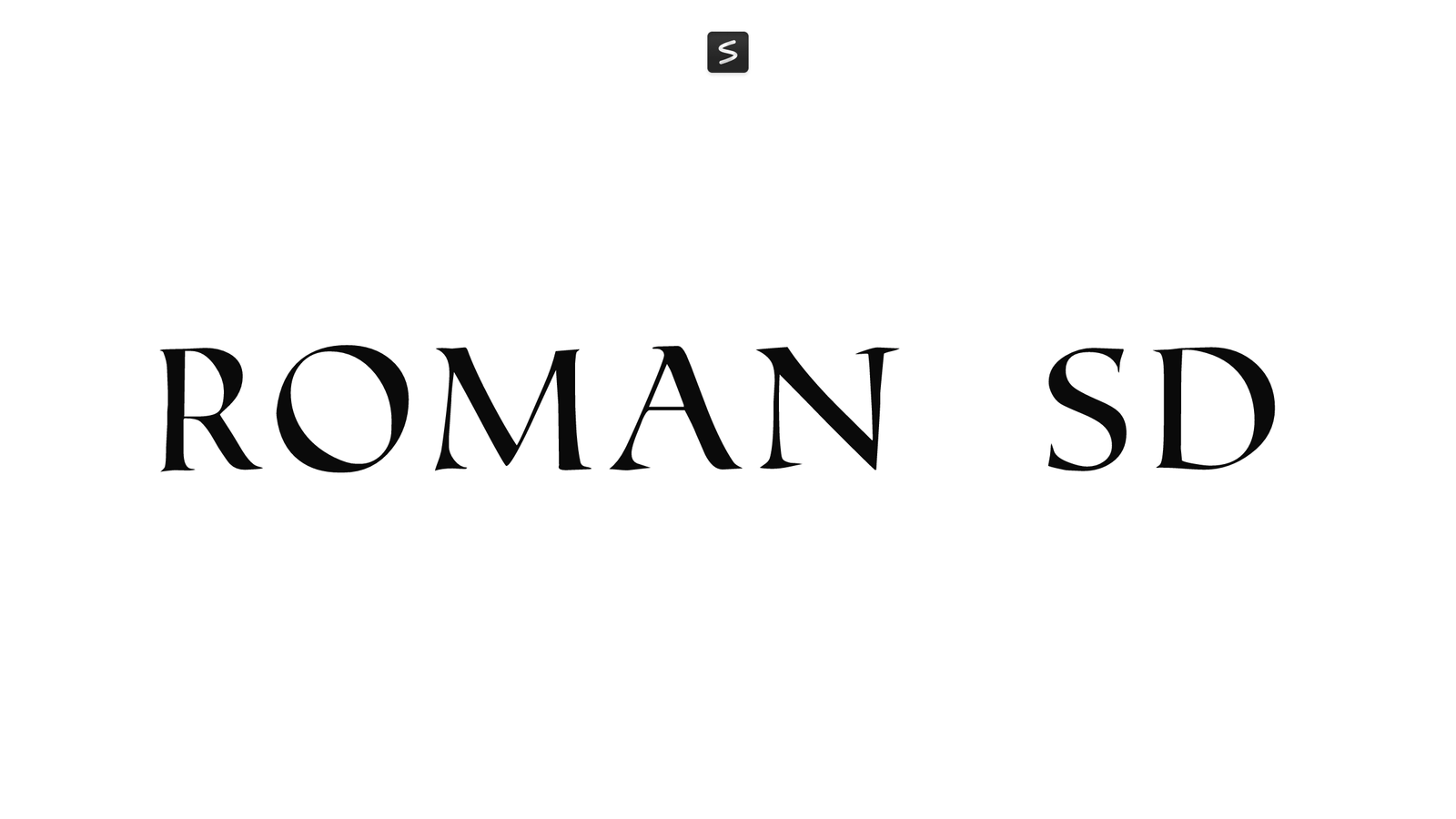
Roman SD is a serif font by Steve Deffeyes inspired by the capital letters carved into Trajan’s Column in Rome. Rather than mimicking the rigidity of stone-cut letterforms, it adopts a more calligraphic approach, softening the classical proportions with subtle pen-like strokes and warmth. The full character set was expanded in 2009.
The letterforms carry the weight and formality of Roman inscriptions but feel drawn rather than chiseled, making them approachable without losing their authority. High contrast between thick and thin strokes, paired with generous spacing, gives the font a refined, measured quality suited to text that needs presence and dignity.
Roman SD works well for book covers, formal invitations, heritage branding, classical posters, and any project that calls for a connection to historical typography or architectural tradition. It bridges ancient letterforms and contemporary design without pretense.